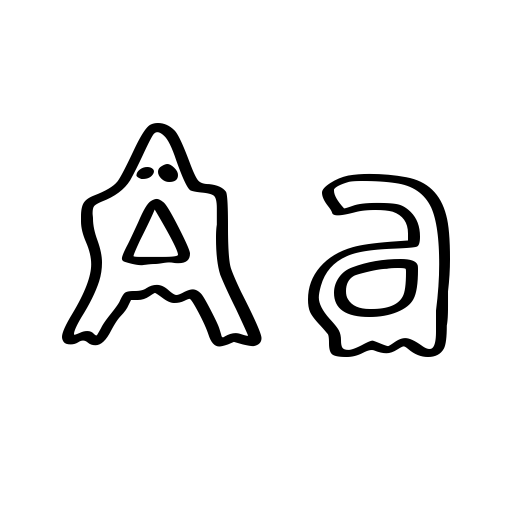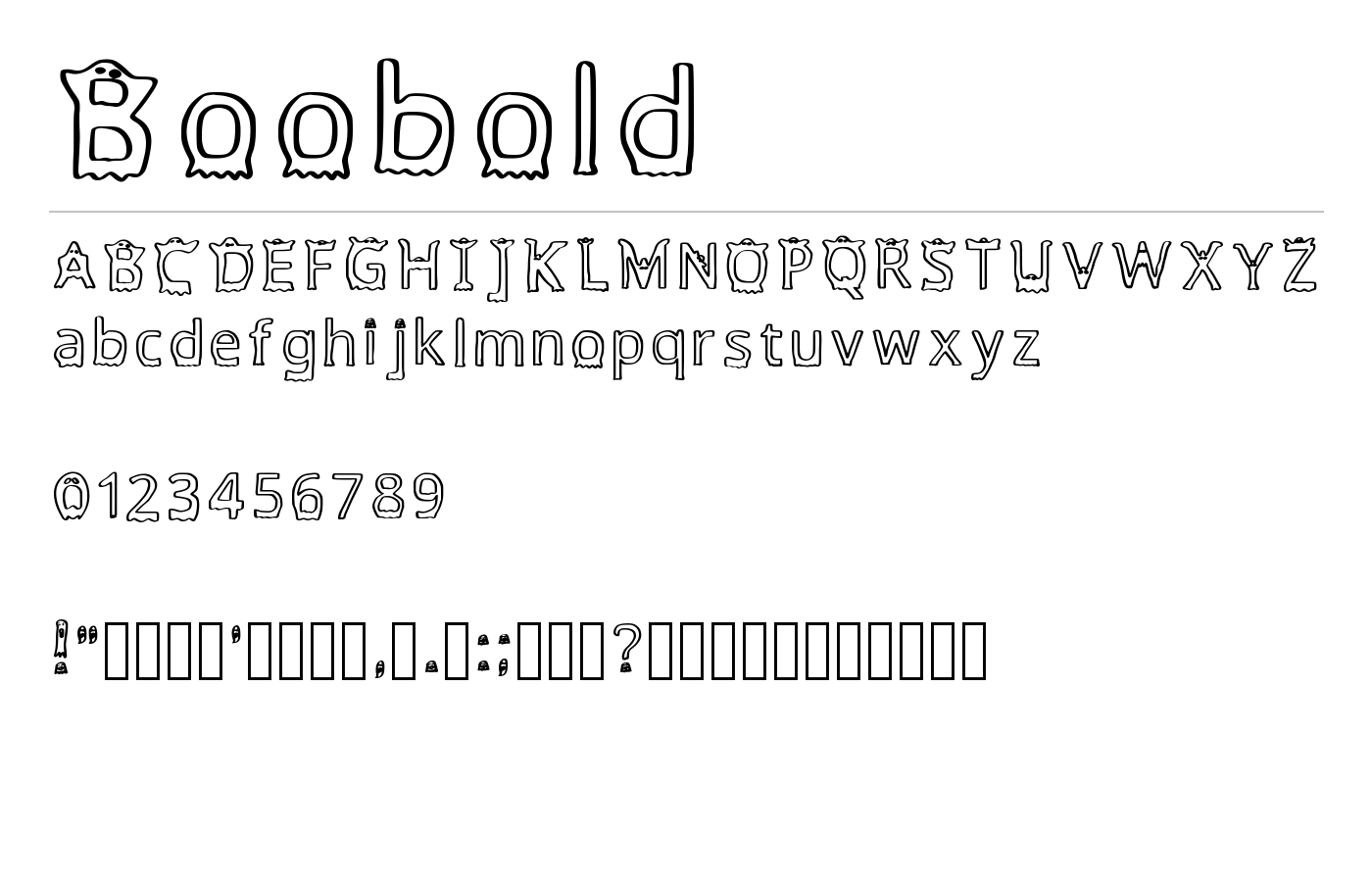
Boo Font is a playful and whimsical sans serif typeface with a unique, hand-drawn style that features ghost-like shapes and irregular edges, creating a fun and spooky vibe. Its light weight, airy spacing, and quirky letterforms make it perfect for Halloween-themed designs, children’s projects, and festive branding where a friendly yet eerie mood is desired. This font works best in headlines, logos, and decorative uses where personality and charm are key.
Boo Font
About Boo Font